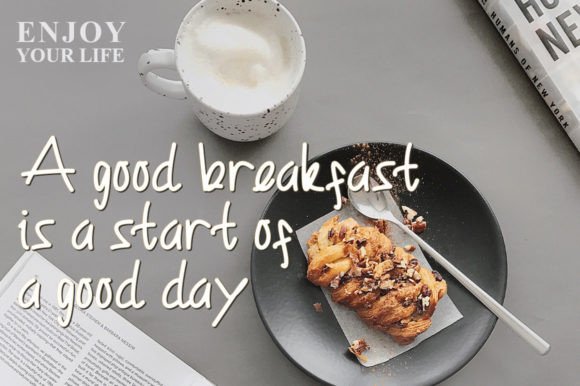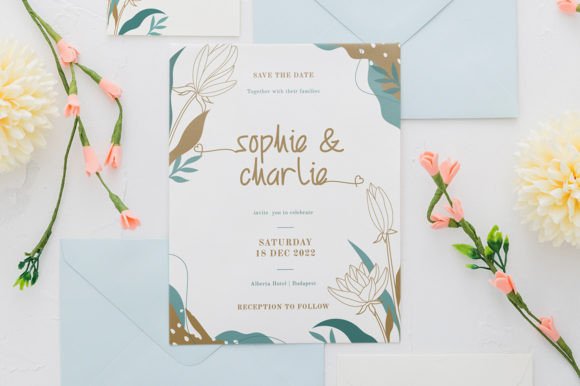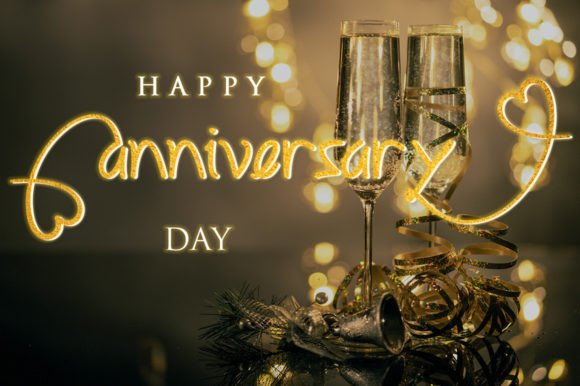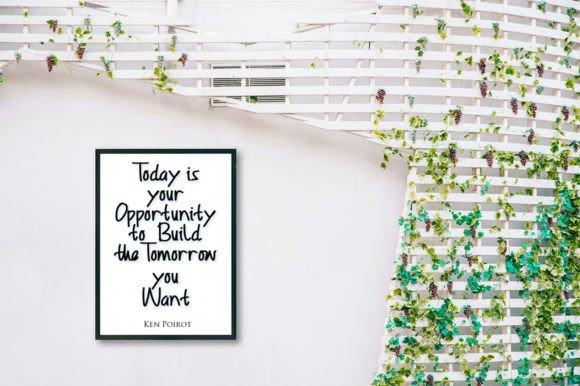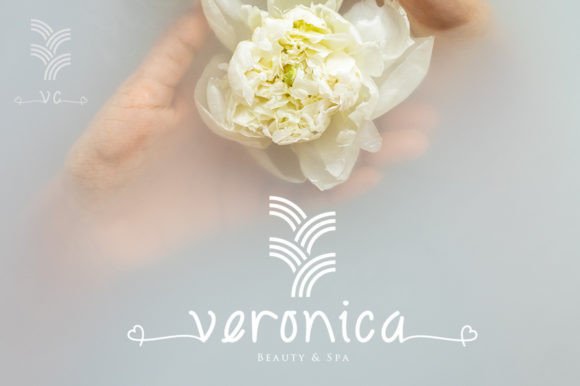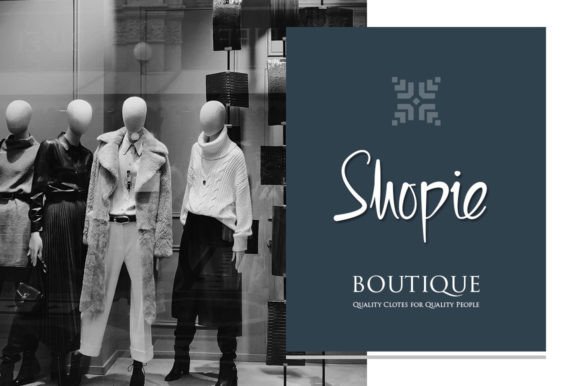
Casanova Font: Elevate Your Designs with Luxurious Handwritten Script
Are you looking for a font that exudes luxury and sophistication? Look no further than the Casanova Font! This exquisite handwritten script font is designed to add a touch of elegance and refinement to any design project. With its beautiful glyphs and ligatures, Casanova is the perfect choice for designers and crafters who want to create stunning visual content.
What Makes Casanova Font Special?
Casanova is more than just a font – it’s an experience. This luxurious handwritten script font is carefully crafted to bring a sense of opulence and grandeur to your designs. Whether you’re working on a branding project, a wedding invitation, or a packaging design, Casanova is sure to make a statement.
One of the standout features of Casanova is its PUA (Private Use Area) encoding. This means that you can access all of the amazing glyphs and ligatures with ease, giving you unparalleled creative control over your designs. With Casanova, you can add intricate details and flourishes to your typography, taking your designs to the next level.
Key Features of Casanova Font
- Exquisite Handwritten Script: Casanova is a beautifully crafted handwritten script font that exudes luxury and sophistication.
- PUA Encoded: With PUA encoding, you can access all of the amazing glyphs and ligatures with ease, giving you maximum creative control.
- Luxurious and Refined: Casanova is perfect for designs that require a touch of elegance and refinement, such as branding, wedding invitations, and packaging.
How to Use Casanova Font in Your Designs
- Pair with Other Fonts: Casanova pairs beautifully with other fonts, such as sans-serif fonts like Arial or Helvetica. Experiment with different combinations to find the perfect look for your design.
- Experiment with Glyphs and Ligatures: With PUA encoding, you can access a wide range of glyphs and ligatures. Experiment with different combinations to add unique details to your typography.
- Use for Headings and Titles: Casanova is perfect for headings and titles, where you want to make a statement. Use it to add a touch of luxury and sophistication to your designs.
Why Designers and Crafters Love Casanova Font
Casanova has quickly become a favorite among designers and crafters, and for good reason. Here are just a few reasons why:
- Unique and Versatile: Casanova is a unique and versatile font that can be used in a wide range of design projects.
- Elegant and Refined: Casanova exudes elegance and refinement, making it perfect for designs that require a touch of luxury.
In conclusion, Casanova Font is a luxurious handwritten script font that is sure to elevate your designs to the next level. With its exquisite glyphs and ligatures, PUA encoding, and ease of use, Casanova is the perfect choice for designers and crafters who want to create stunning visual content. Whether you’re working on a branding project, a wedding invitation, or a packaging design, Casanova is sure to make a statement. So why wait? Try Casanova Font today and experience the power of luxurious typography!